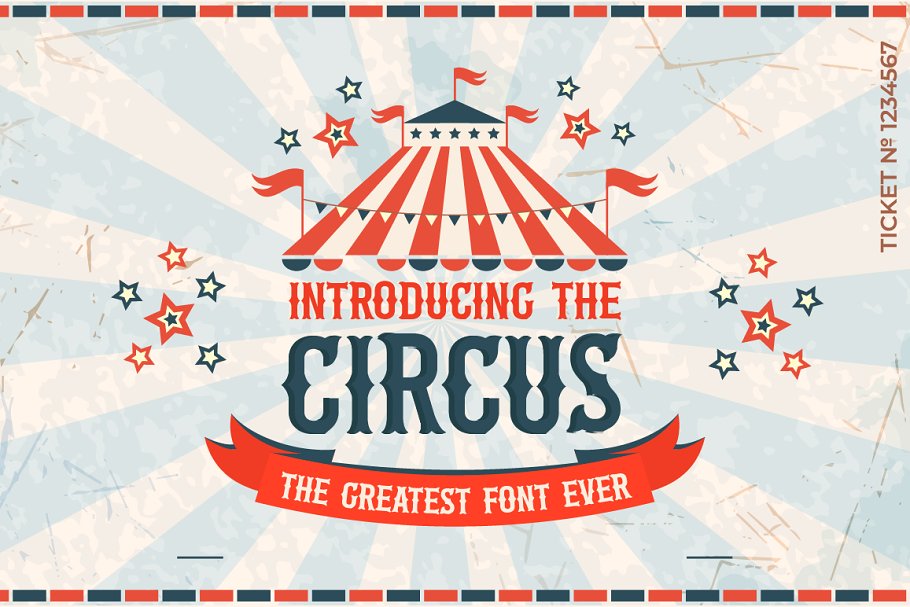
Welcome to The Circus Font - the perfect addition to your collection of Best Fonts for Event Flyers! Created by Salt & Pepper Designs, this font family is guaranteed to add a touch of magic to your designs.
With its quirky kicks and flicks, this font will transport your audience to the circus, where all of the performers are happy to help with all of your design needs. The Circus Font is versatile and can be used across a wide range of your work, from event flyers to posters, invitations, and more.
So step right up and join the circus with The Circus Font - your designs will never be the same again!